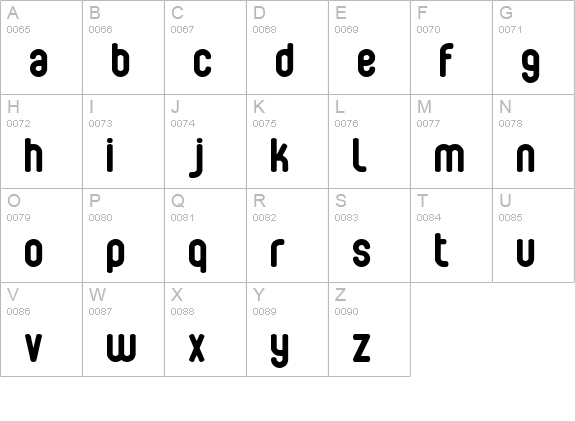
Bubbleboy Font Details
Bubbleboy font is a playful and whimsical typeface that exudes a fun and bubbly personality. With its rounded edges and cheerful demeanor, this font is perfect for adding a touch of lightheartedness to any design project. Whether you're creating invitations, posters, or social media graphics, Bubbleboy font is sure to bring a smile to your audience's face. The best part about Bubbleboy font is that it is completely free to download at FontsMarket.com. This means you can easily access this delightful font and incorporate it into your projects without any cost. So go ahead and give your designs a boost of joy and creativity with Bubbleboy font today!